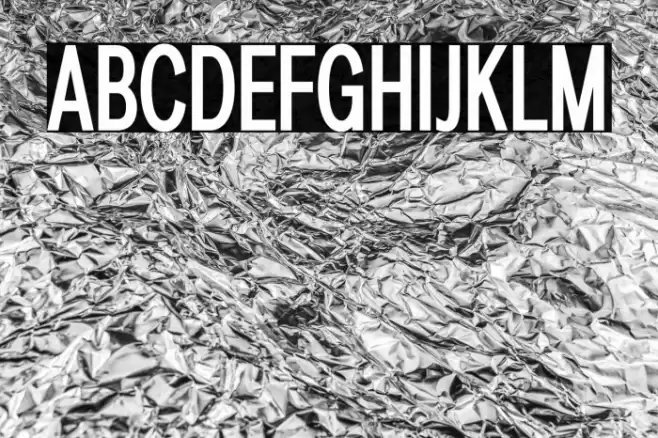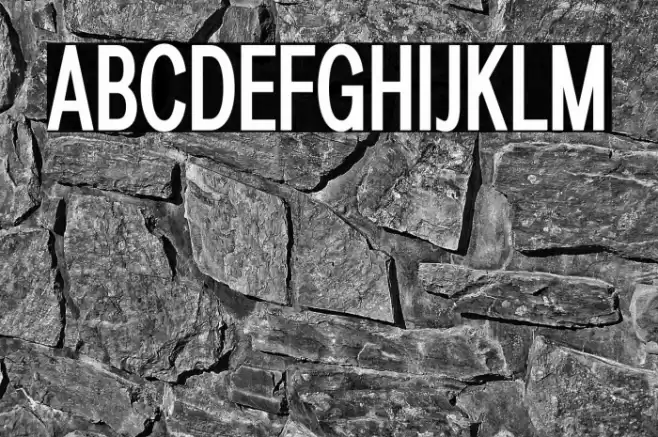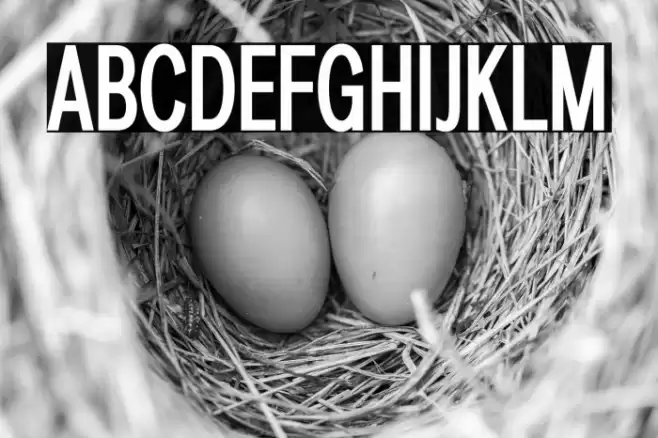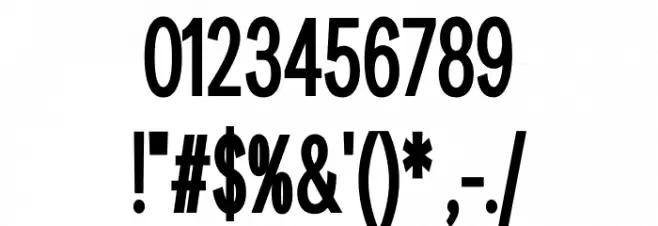
LT Amber Compressed Demi-bold Font
LT Amber Compressed Demi-bold Description
This font features a bold and compressed style, offering a modern and impactful appearance. The uppercase letters are tall and narrow, while the lowercase letters maintain a consistent height, contributing to a cohesive look. The numerals are clear and easily distinguishable, making them suitable for various applications. Special characters are well-defined, enhancing the font's versatility. The overall design is clean and straightforward, making it ideal for projects that require a strong visual presence.
A bold, compressed font with a modern and impactful style from Uncategorized fonts.
- Font: LT Amber Compressed Demi-bold
- Proposed Projects: Ideal for headlines, posters, branding, and advertising where a strong and modern look is desired.
- Character Spacing: Tight